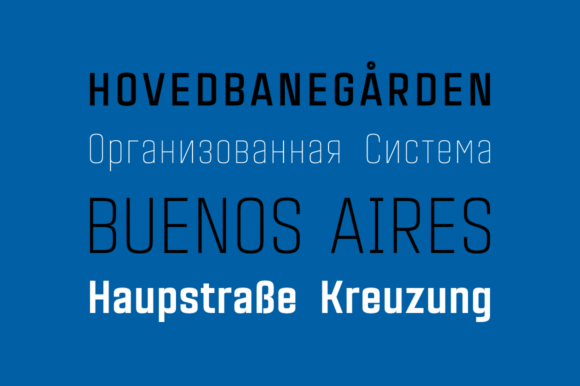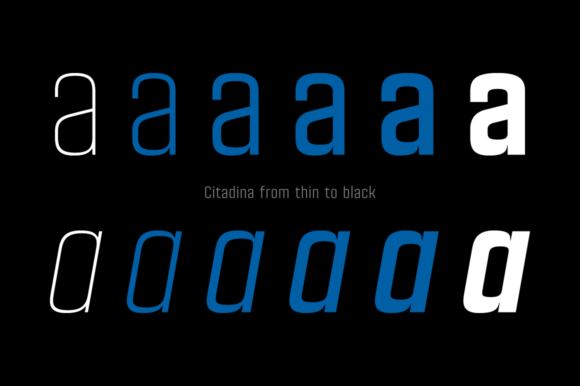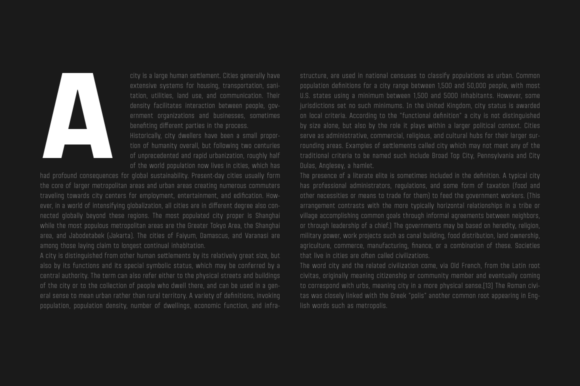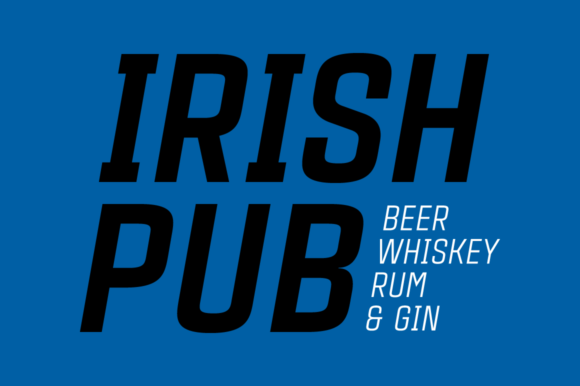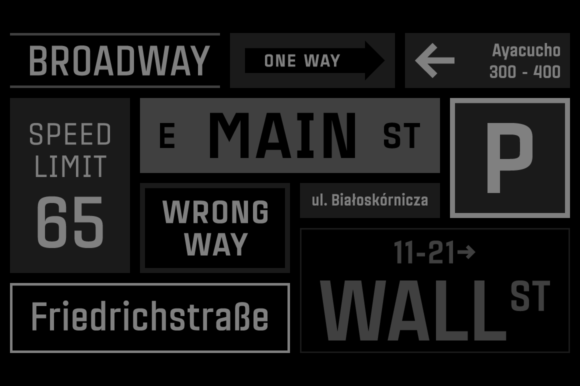
The Perfect Union of Form and Function
As a designer, have you ever found yourself stuck in a sea of cluttered text, desperately searching for a font that would elevate your project without overwhelming it? I’ve been there too. It’s a moment of pure frustration, until suddenly, a spark of inspiration hits – a font that effortlessly balances style and substance, freeing your creative vision to soar. For me, that spark was the Citadina Family Font, a masterful creation that has become an indispensable tool in my design arsenal.
Designed by Pablo Balcells for Graviton Font Foundry in 2016, Citadina Family Font is a sans serif typeface that exudes a sleek, geometrical aesthetic. With its condensed design and 12 versatile styles, it’s the perfect companion for short and middle-length text blocks, as well as headlines of all sizes. As a designer, I can attest to the value of Citadina Family Font – its adaptability and sophistication make it an invaluable asset for any project.
Citadina Family Font Key Features
- Unique Characteristics: The font features a unique blend of modern and classic elements, with a focus on legibility and readability in both digital and print media.
Citadina Family Font Review
The Citadina Family Font is a versatile, modern sans-serif typeface that can be a great addition to your design projects. Here are some of its strengths: ✨
- Legibility: Citadina Family Font is highly legible, making it suitable for both body text and headlines.
- Customizability: The font comes in a range of weights and styles, allowing you to tailor it to your design needs.
- Neutral tone: Citadina Family Font has a neutral, unobtrusive tone that won’t distract from the content it’s used to display.
However, like any font, Citadina Family Font has its limitations: ⚠️
- Lack of personality: While the font is highly legible, it may not have the same level of personality as some other sans-serif fonts.
- Overuse: The font’s versatility can also make it feel overused, especially in projects that rely heavily on sans-serif fonts.
Overall, I think the Citadina Family Font is a solid choice for designers who need a clean, modern typeface. While it may not stand out in a crowded field, it’s a reliable and versatile option that can help you achieve your design goals.
The Citadina Family Font is suitable for a variety of design projects, including:
- Brand identities and logos
- Editorial and publishing designs
- Website and digital interface designs
Tips for Getting the Most Out of Citadina Family Font
To get the most out of Citadina Family Font, consider the following tips:
- Use the font for the main invitation text, highlighting the couple’s names and the wedding details.
- Combine with hand-drawn illustrations or watercolor elements to add a whimsical touch.
- Choose a bold font weight for the main text and a lighter weight for the supporting text.
- Pair the font with floral patterns or lace elements for a vintage-inspired look.
- Use gold or silver foil stamping to add a luxurious feel to the invitation.
- Consider adding a custom illustration of the couple or a special location to make the invitation truly unique.
Project Ideas Using Citadina Family Font
Create a unique and enchanting wedding invitation using the Citadina Family Font. This font’s playful and elegant feel will add a touch of magic to your special day.
Project 2: Citadina Family Font Journal
Create a beautiful journal using the Citadina Family Font as the primary text element. This font’s elegance and sophistication will make your journal a treasured possession.